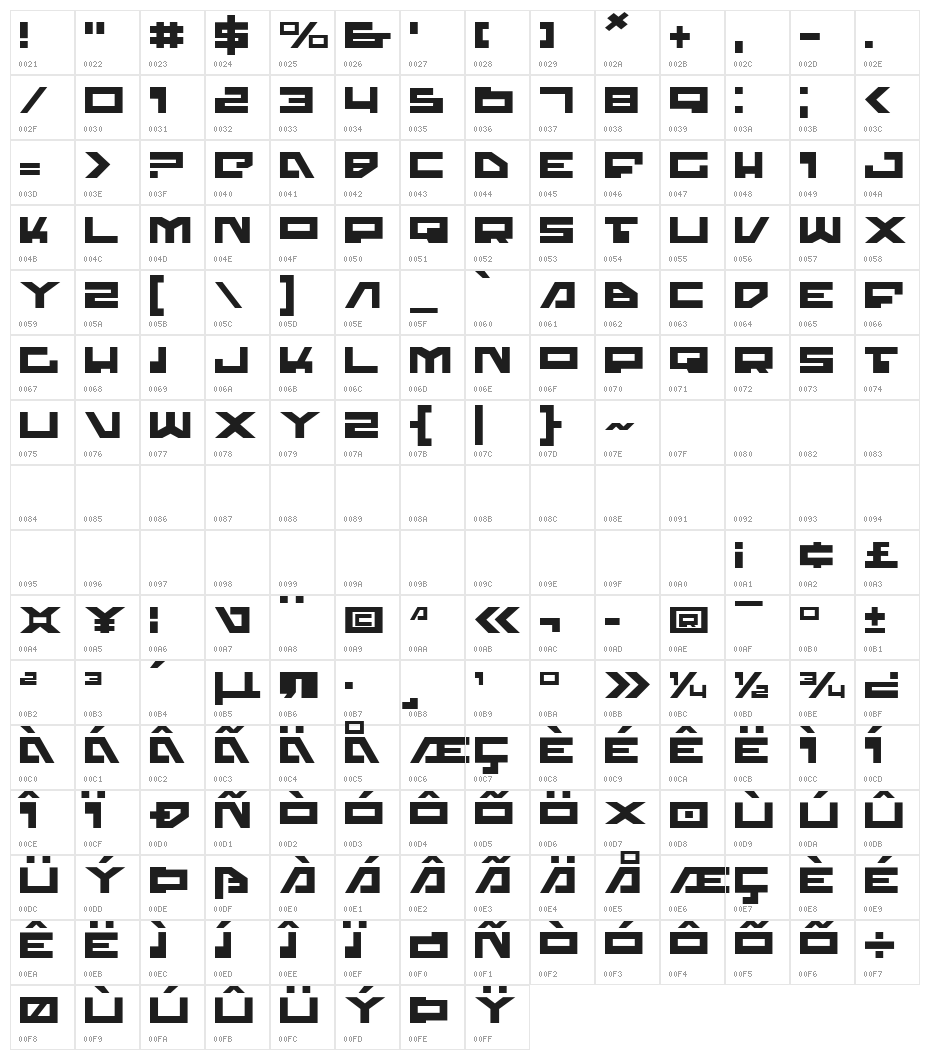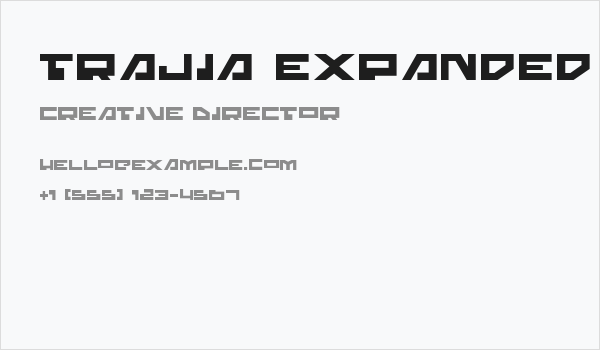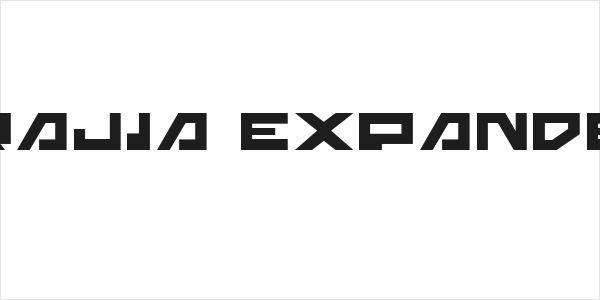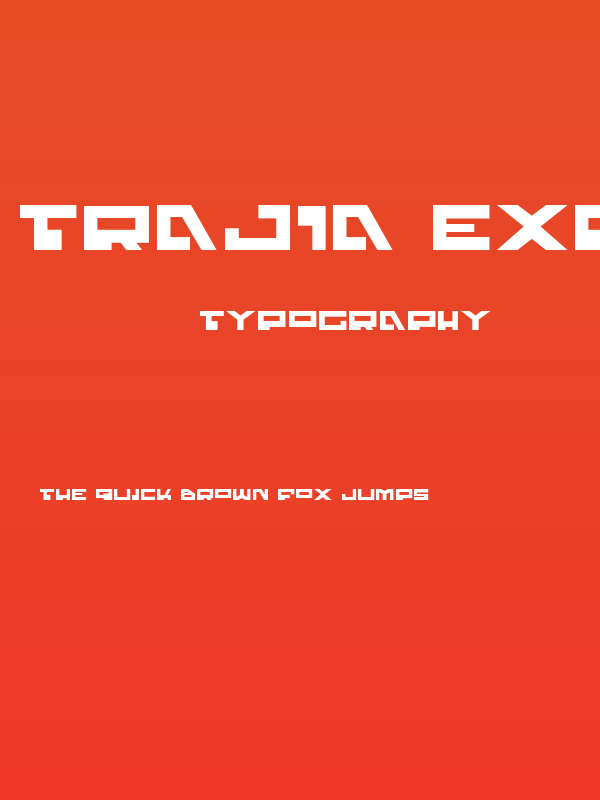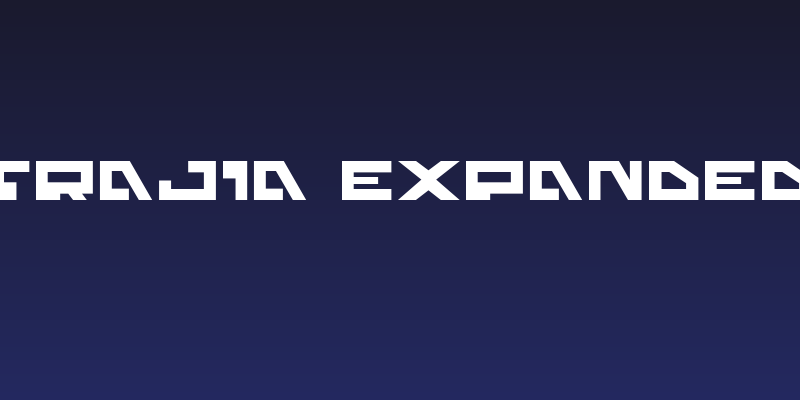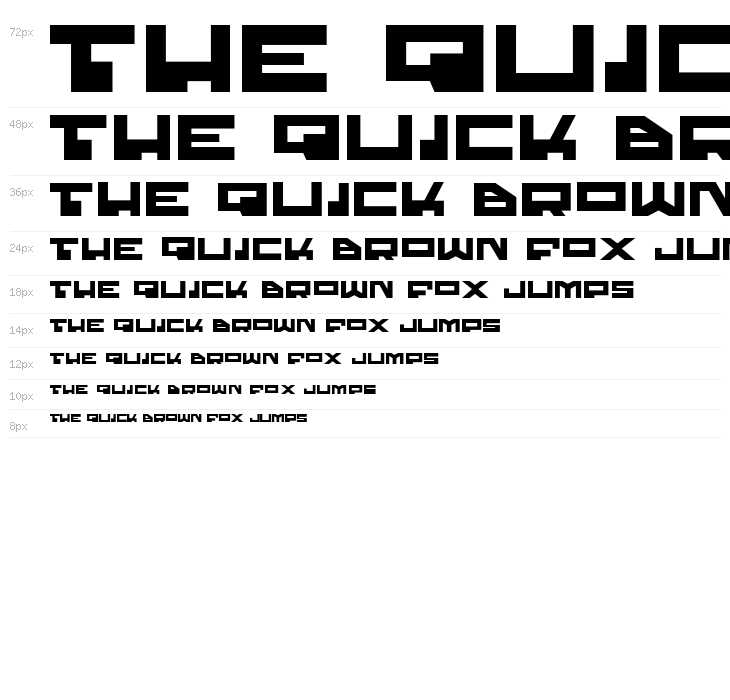
Trajia Expanded Font
This font features a bold and geometric design with a futuristic flair. The characters are constructed with sharp angles and straight lines, creating a sense of structure and modernity. The uppercase letters are particularly striking, with a blocky appearance that suggests strength and stability. The numbers and special characters maintain this angular aesthetic, ensuring consistency across all glyphs. The font's expanded width allows for a commanding presence, making it ideal for attention-grabbing headlines or branding that requires a modern and assertive look.